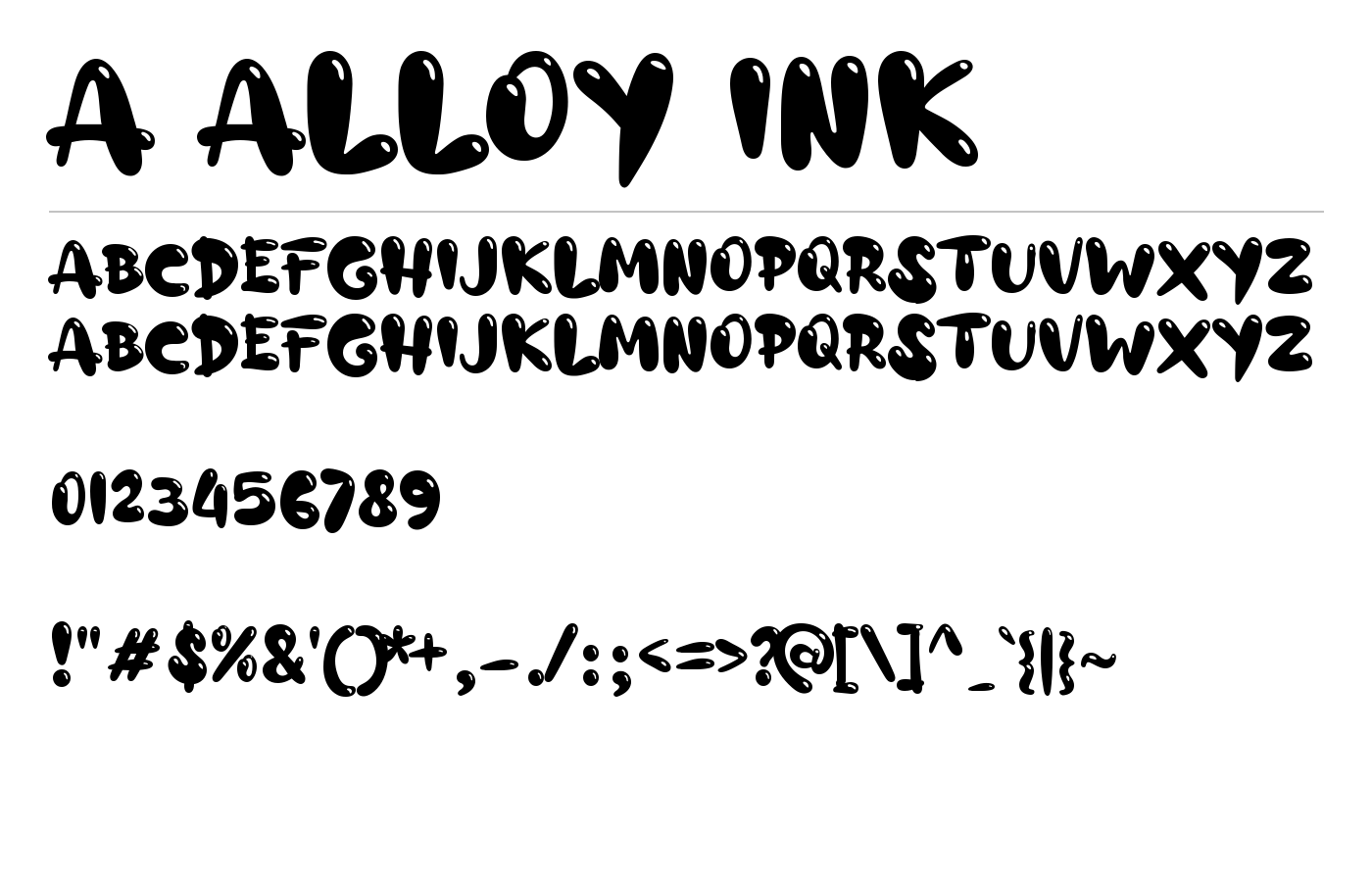
Alloy Ink is a bold, playful sans serif font with a hand-drawn, bubbly feel marked by irregular, inkblot-like shapes and rounded edges. Its heavy weight and condensed width give it a strong, impactful presence, making it perfect for fun, informal designs like children's books, party invitations, or quirky branding that wants to feel approachable and lively. This font’s unique, casual character adds a spirited touch that stands out in headlines and logos but works best in short bursts rather than long text.
a Alloy Ink Font
About a Alloy Ink Font